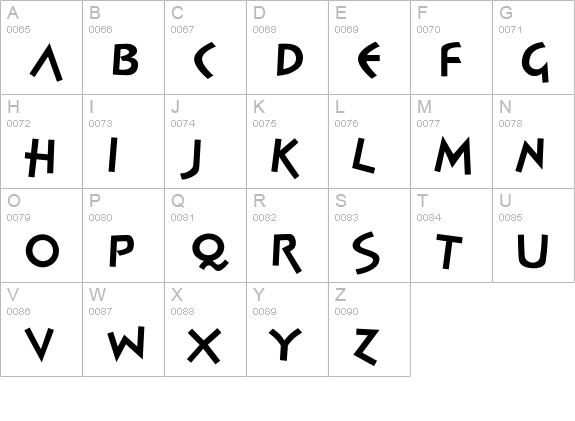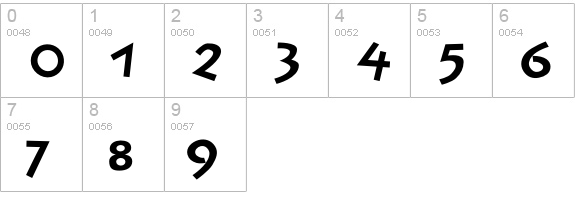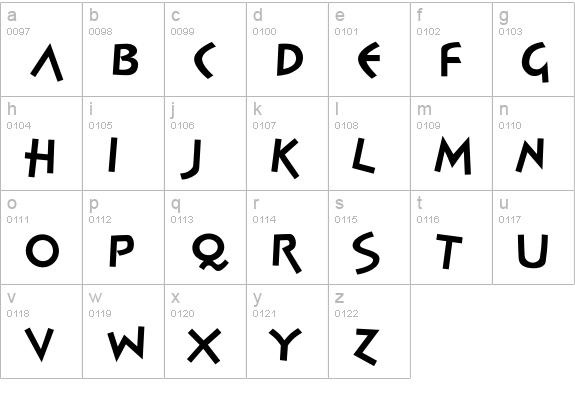
Spontan-Medium Font Details
Spontan-Medium is a balanced, medium-weight variant in the Spontan typeface family \xE2\x80\x94 well suited to sub-headlines, navigation, and balanced editorial work.
Spontan-Medium is a font that exudes a sense of effortless elegance and modernity. With its sleek lines and balanced proportions, this versatile typeface is perfect for any design project that requires a touch of sophistication. Whether used for editorial layouts, branding materials, or web design, Spontan-Medium effortlessly captivates the viewer's attention. One of the standout features of Spontan-Medium is its seamless integration of both classic and contemporary design elements. The font strikes the perfect balance between tradition and innovation, making it a timeless choice for designers seeking a versatile and dynamic typeface. Spontan-Medium is characterized by its clean and legible letterforms, ensuring optimal readability across various media. Each letter is meticulously crafted, paying careful attention to detail, resulting in a harmonious composition that is both visually pleasing and highly functional. This font is not only visually appealing but also freely available to download at FontsMarket.com. This means that designers and creatives can easily access Spontan-Medium without having to worry about any financial constraints. Its accessibility makes it an ideal choice for students, freelancers, and professionals alike who are looking to elevate their designs without breaking the bank. Furthermore, Spontan-Medium's versatility extends beyond its aesthetic appeal. It offers a wide range of weights and styles, allowing designers to experiment and create visually captivating compositions. Whether it is used for headlines, body text, or captions, this font adapts effortlessly to any typographic context, making it a reliable and flexible choice for all design needs. In conclusion, Spontan-Medium is a font that effortlessly combines timeless elegance with contemporary design elements. Its legibility, versatility, and accessibility make it an invaluable tool for designers of all levels. And with its free availability for download at FontsMarket.com, there are no barriers to accessing this exceptional typeface. So, why wait? Download Spontan-Medium today and take your design projects to new heights.